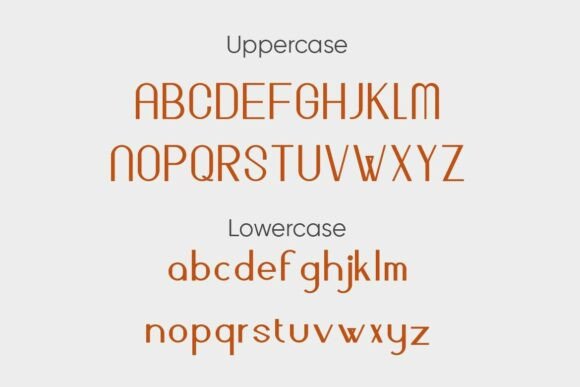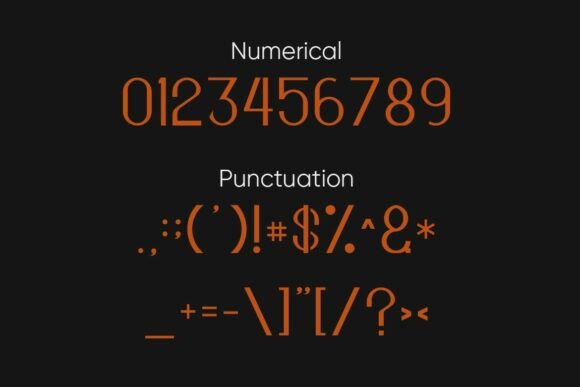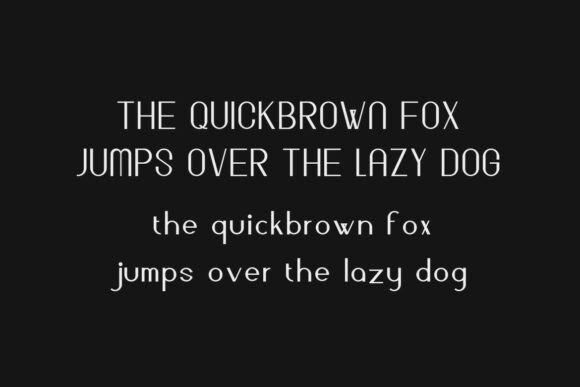
Introducing Glamy Font: The Epitome of Modern Sophistication
In the world of typography, fonts play a crucial role in conveying the tone and personality of a brand. For designers and crafters, finding the perfect font that embodies elegance, simplicity, and style can be a daunting task. However, with Glamy Font, your search is over. Glamy is a sleek and stylish minimalist font that seamlessly blends modern simplicity with soft sophistication, making it an ideal choice for various design applications.
Design Characteristics of Glamy Font
Glamy Font is characterized by its clean lines, generous spacing, and graceful proportions. These design elements work in harmony to create a sense of calmness and polish, making Glamy feel effortlessly chic. The font’s minimalist approach ensures that it remains unobtrusive, allowing the content to take center stage while still adding a touch of sophistication.
Perfect for Fashion Branding and Lifestyle Content
Fashion branding and lifestyle content require a font that exudes elegance and style. Glamy Font fits the bill perfectly, with its sleek and modern design that instantly elevates any brand or content. Whether you’re designing a logo, packaging, or social media graphics, Glamy ensures that your visual identity is cohesive and refined.
Key Features of Glamy Font
- Clean Lines: Glamy’s clean lines ensure that the font remains crisp and clear, even at smaller sizes.
- Generous Spacing: The font’s generous spacing enhances readability, making it perfect for body text and captions.
- Graceful Proportions: Glamy’s proportions are carefully crafted to create a sense of balance and harmony.
- Multilingual Support: Glamy Font supports multiple languages, making it a versatile choice for global brands.
Applications of Glamy Font
Glamy Font is an incredibly versatile typeface that can be used in a variety of design applications, including:
- Fashion Branding: Create stunning logos, packaging, and marketing materials that reflect your brand’s style and sophistication.
- Lifestyle Content: Elevate your blog, social media, or editorial content with a font that exudes elegance and refinement.
- Social Media Graphics: Design engaging social media graphics, such as Instagram posts, Facebook headers, and Twitter graphics, that showcase your brand’s personality.
- Packaging Design: Add a touch of luxury to your product packaging with Glamy Font.
- Editorial Design: Use Glamy Font in editorial design projects, such as magazines, newspapers, and books, to create a sophisticated and polished look.
Why Choose Glamy Font?
With so many fonts available, why choose Glamy Font? Here are a few compelling reasons:
- Unique Blend of Style and Simplicity: Glamy Font offers a perfect balance of modern simplicity and soft sophistication.
- High Readability: The font’s clean design and generous spacing ensure high readability, even at smaller sizes.
- Versatility: Glamy Font can be used in a wide range of design applications, making it a valuable addition to any designer’s toolkit.
In conclusion, Glamy Font is an exceptional choice for designers and crafters seeking a sleek, stylish, and sophisticated typeface. Its unique blend of modern simplicity and soft sophistication makes it perfect for fashion branding, lifestyle content, social media, packaging, logos, and editorial design. With its clean lines, generous spacing, and graceful proportions, Glamy Font is sure to elevate your design projects and add a touch of elegance to your visual identity.